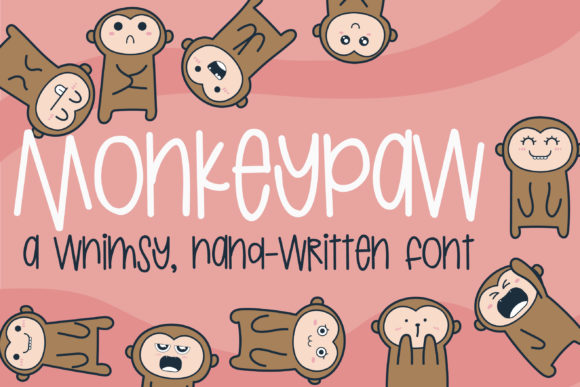
Dive into a world of whimsical enchantment with the Monkey Paw Font, a captivating script that brims with the innocence and playfulness of childhood. This enchanting font, meticulously crafted by the artists at Illustration Ink, weaves a magical tapestry of words, captivating the hearts of children and adults alike.
Step into a realm where imagination soars and dreams take flight. The Monkey Paw Font dances across digital pages like a playful imp, transforming ordinary text into extraordinary tales. Its charming curves and whimsical flourishes breathe life into children's stories, school projects, and any endeavor yearning for a touch of youthful exuberance.
The Monkey Paw Font is not merely a collection of characters; it's a gateway to a realm of boundless creativity. Its playful spirit sparks joy in the hearts of young readers, drawing them into the captivating world of books and knowledge. Teachers and students alike will find solace in its embrace, as words flow effortlessly from pen to paper, capturing the essence of learning and exploration.
But the Monkey Paw Font's magic extends far beyond the confines of academia. It graces invitations and greeting cards with an air of whimsical delight, ensuring that every occasion becomes a cherished memory. Its playful charm adds a touch of whimsy to social media posts, capturing the attention of followers and sparking conversations filled with laughter and joy.
Embrace the Monkey Paw Font today and embark on a journey of creative exploration. Let its enchanting spirit guide you as you weave captivating stories, ignite imaginations, and create lasting memories. The Monkey Paw Font is not just a font; it's an open door to a world of wonder, where the written word takes on a life of its own, inspiring and delighting all who encounter it.